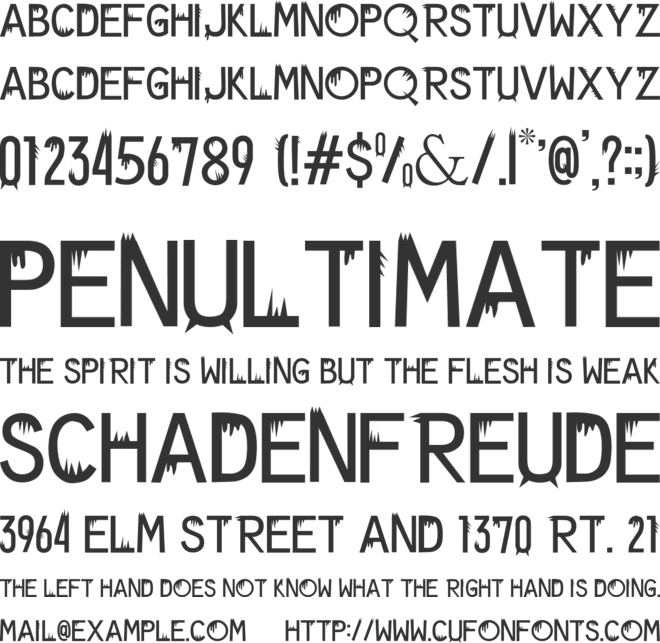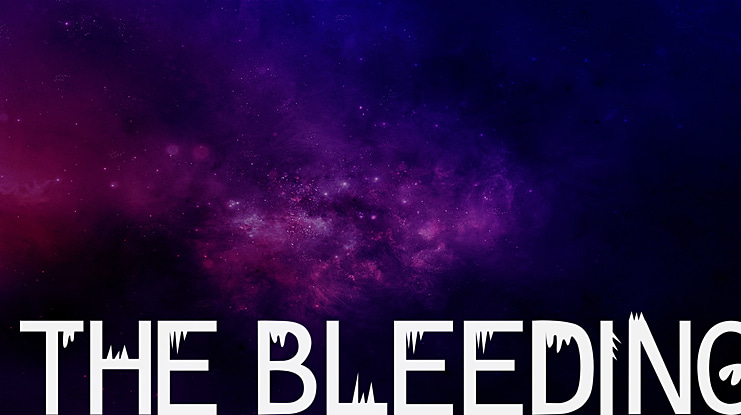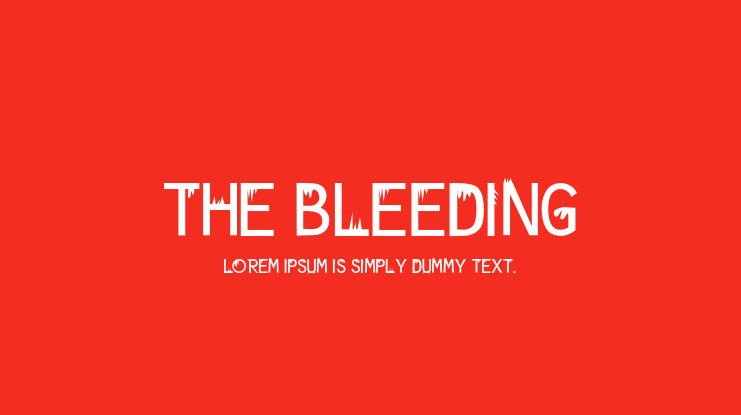
The Bleeding Font
Introducing our new release,The Bleeding Horror Typeface. This typeset is perfect for brand logo, invitations, greeting card, or even any kind of project. With multilingual feature and style variations, this typeface would further enhance the aestethical aspect of your work.Visit our website :https://displaytypefont.com/product/the-bleeding-100-free/